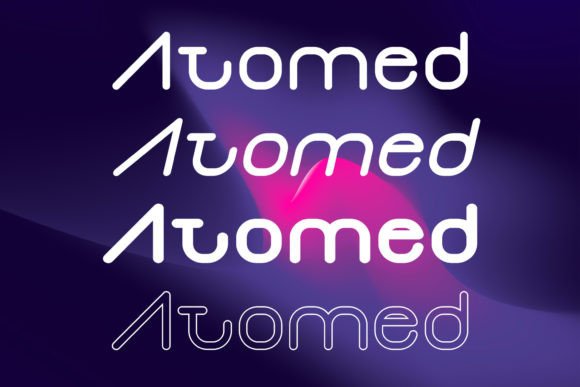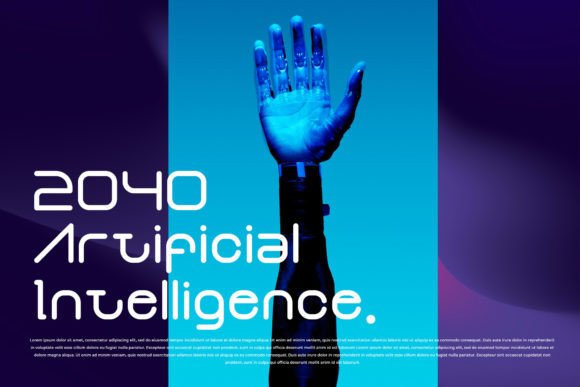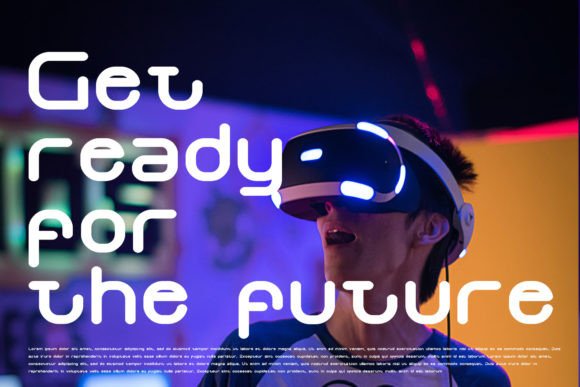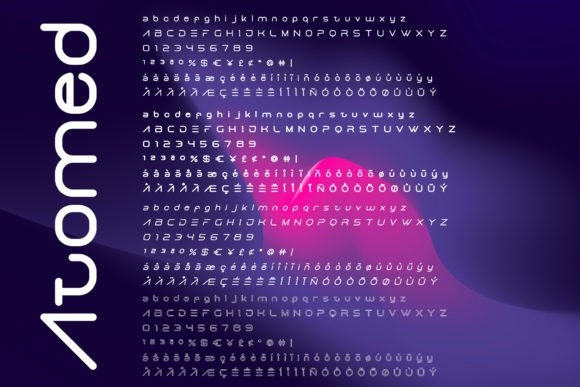
Unlocking the Future of Design: Introducing Atomed Font
Have you ever found yourself stuck in a design rut, searching for the perfect font to bring your futuristic vision to life? We’ve all been there. The moment of clarity hits – you envision a sleek, modern logo, a sci-fi inspired poster, or a futuristic product design that screams innovation. That’s where the Atomed Font comes in – a game-changing display font that’s specifically designed to transport your audience to a world of tomorrow.
With its unique blend of style and functionality, the Atomed Font is the ultimate tool for designers looking to infuse their work with a cutting-edge, futuristic vibe. From events and logotypes to social media and products, this versatile font is the perfect solution for anyone seeking to make a lasting impression. Whether you’re a seasoned pro or just starting out, the Atomed Font is an invaluable addition to your design arsenal.
Atomed Font Key Features
- Font Family: Atomed Font comes in a single font family with various styles and weights, including Regular, Bold, Italic, and Bold Italic.
- Character Count: The font includes a wide range of characters, including Latin, Cyrillic, and Greek alphabets, as well as punctuation and special characters.
- Unique Characteristics: Atomed Font features a unique blend of modern and futuristic elements, with clean lines, geometric shapes, and a bold, eye-catching design.
Atomed Font Review
Atomed Font, designed by Rodrigo Fuenzalida, is an elegant sans-serif typeface that caught my attention. ✨ The rounded edges and subtle curves give it a modern yet friendly feel, making it suitable for various design projects.
Some of the strengths of Atomed Font include:
- ✨ Clean and legible typography
- ✨ Great for body text and headings
- ✨ Suitable for modern and minimalist designs
- ⚠️ The font may not be as versatile as other sans-serif typefaces
- ⚠️ Some users might find the rounded edges too soft
Overall, Atomed Font is a solid addition to any designer’s toolkit. While it may not excel in every area, its strengths make it a great choice for modern and minimalist designs. With a little creativity, you can work around its limitations and achieve stunning results.
For the best results, use Atomed Font in combination with bold or italic styles to add emphasis to your text. You can also experiment with different font sizes and colors to create a visually appealing design.
Atomed Font is ideal for use in:
- Body text in brochures and flyers
- Logo design and branding